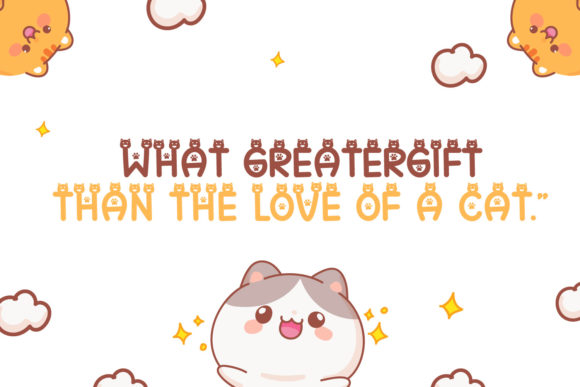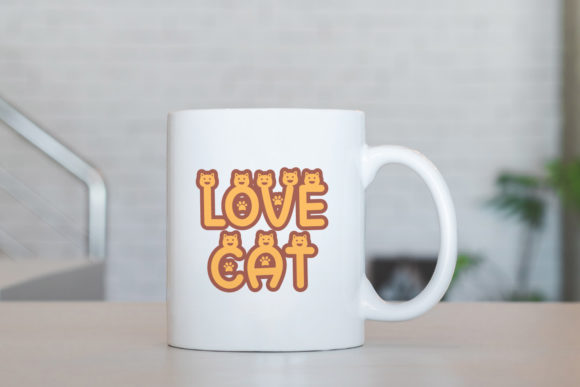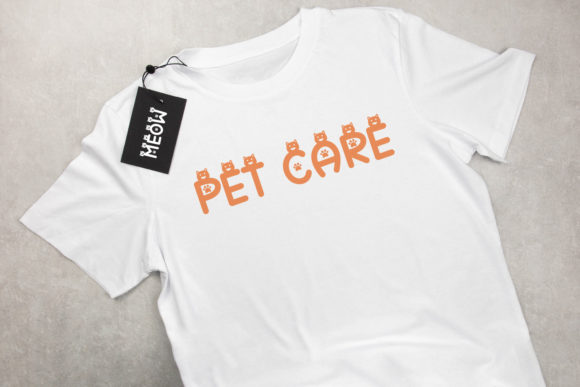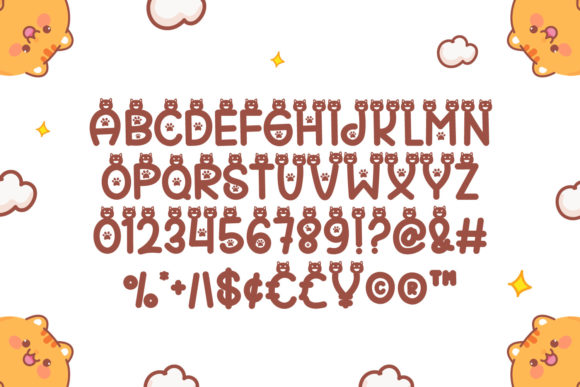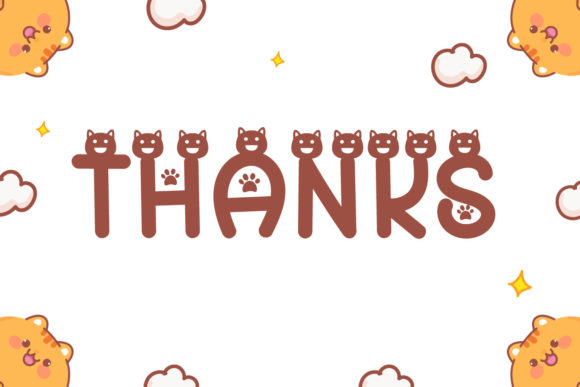
The Purr-fect Font for Your Next Creative Project
Who hasn’t been inspired by a cute cat at some point? Whether it’s a funny meme or a heartwarming video, cats have a way of brightening up our day. As designers, we’re always on the lookout for creative ways to add a personal touch to our projects. And that’s exactly where the Cat Meow Font comes in – a delightful, whimsical font that features adorable little cats on each character.
This charming font is not just a fun addition to your designs; it’s also a valuable tool for designers looking to add a touch of playfulness and whimsy to their projects. Whether you’re working on a cartoon-themed design, a children’s game, or simply want to add a lovable element to your creation, the Cat Meow Font is an amazing choice.
Cat Meow Font Key Features
- Unique Characteristics: The Cat Meow Font features a playful, whimsical design with distinctive cat-shaped characters, making it perfect for cat-themed designs, children’s books, and other fun projects.
- Character Set: The font includes a comprehensive character set, including uppercase and lowercase letters, numbers, punctuation marks, and special characters, making it suitable for a wide range of applications.
- Font Weight: The font comes in two font weights: Regular and Bold, allowing for added emphasis and visual interest in designs.
Designer Review: Cat Meow Font
I recently had the chance to work with the Cat Meow Font, and I have mixed feelings about it. Here’s my honest take:
- Unique design: The Cat Meow Font has a distinct, playful feel that’s sure to stand out in your designs.
- Good for titles and headings: The font is perfect for adding a touch of whimsy to your titles and headings.
- Works well with illustrations: The Cat Meow Font pairs well with hand-drawn illustrations, adding a sense of charm and personality to your designs.
- Limited legibility: At smaller font sizes, the Cat Meow Font can become difficult to read, especially for body text.
- No language support: The font seems to be limited to English and a few other languages, which may be a concern for designers working with international clients.
- Not ideal for large blocks of text: The Cat Meow Font is best suited for short, snappy text and is not suitable for large blocks of body text.
Overall, the Cat Meow Font is a fun and playful addition to any design project, but it’s not a font I’d use for extensive body text or formal designs. It’s best suited for titles, headings, and small text snippets where its unique personality can shine through.
The Cat Meow Font is ideal for designs that require a playful, whimsical touch. Some common use cases include:
– Children’s book illustrations
– Party invitations
– Cartoon-style logos
– Any design that requires a fun, lighthearted feel.